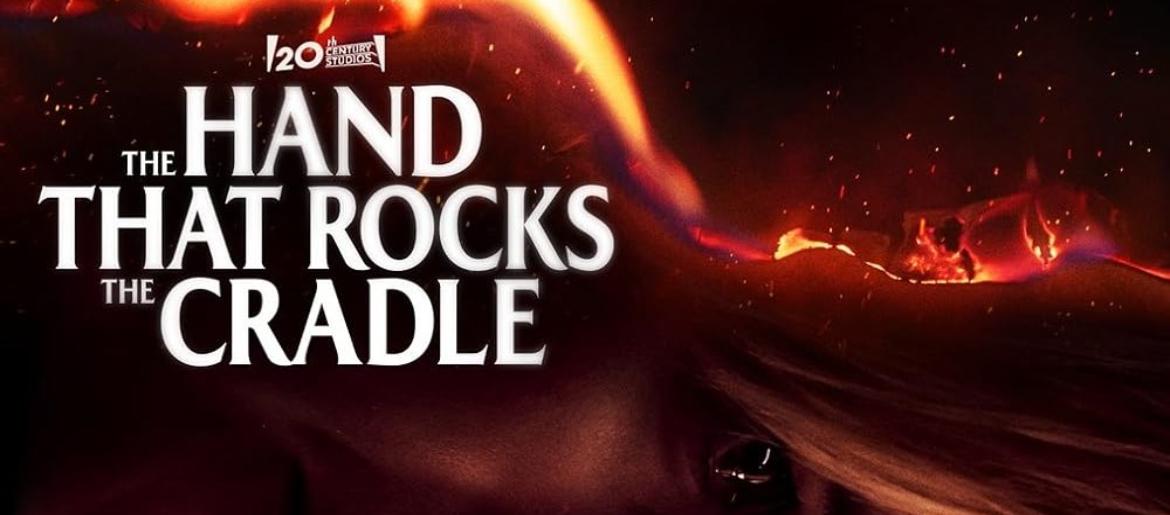
The Hand That Rocks the Cradle Font
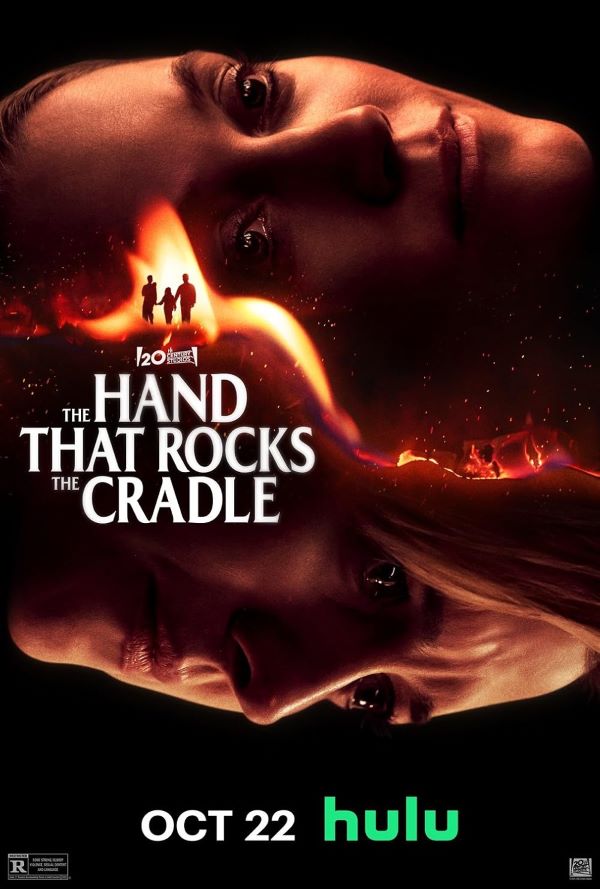
What Font is The Hand That Rocks the Cradle?
The Hand That Rocks the Cradle Font is most likely based on Majesty Bold, a commercial typeface admired for its dramatic, high-contrast letterforms and classic thriller-style presence. The font’s sharp elegance and bold construction match the suspenseful and psychological tone of the 2025 film’s title treatment. A free alternative font is also available, offering a similar cinematic look for designers seeking an accessible option.
About The Hand That Rocks the Cradle
The Hand That Rocks the Cradle (2025) is a psychological thriller reboot of the classic 1990s film, delivering a modern reimagining of manipulation, obsession, and domestic fear. The story centers on a seemingly compassionate nanny who enters a grieving household under the pretense of helping a vulnerable family recover — while secretly orchestrating a dangerous plan of emotional and psychological control.
Set in a contemporary suburban environment, the film explores themes of trust, maternal rivalry, identity, and revenge. The story builds slowly through tense interpersonal moments, gradually escalating into a chilling web of deception that threatens the safety of the entire family.
The film stars Jessica Chastain as the lead antagonist, with Elizabeth Debicki and Lucas Hedges supporting as members of the targeted family. Directed with a sleek modern thriller aesthetic, the 2025 version blends psychological suspense, modernized character dynamics, and updated themes of privacy, mental health, and domestic vulnerability.